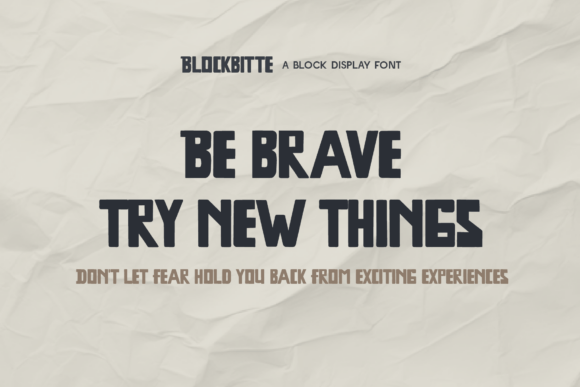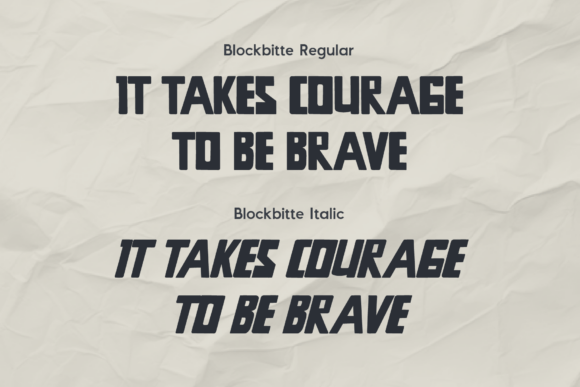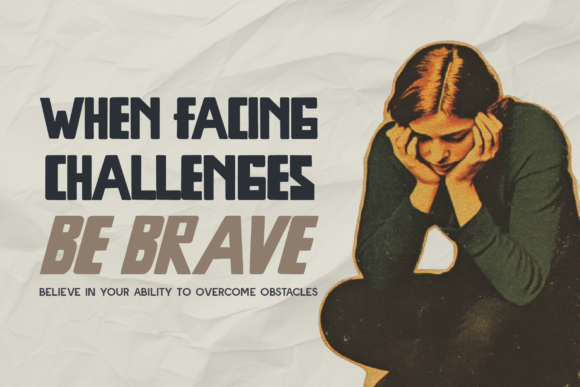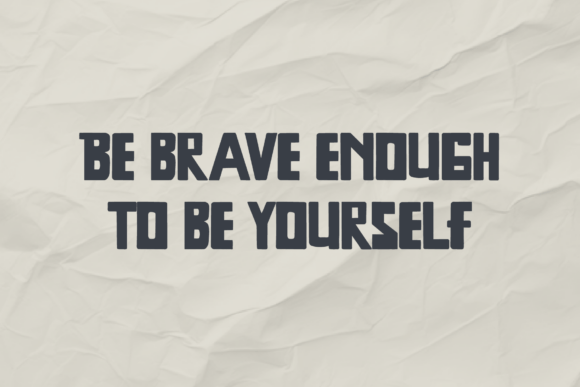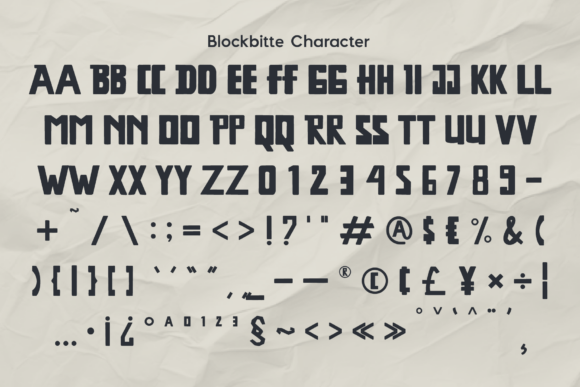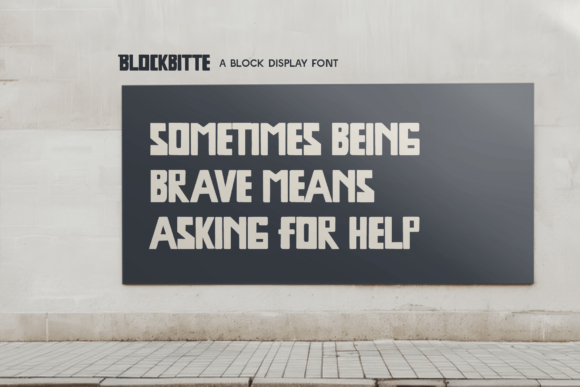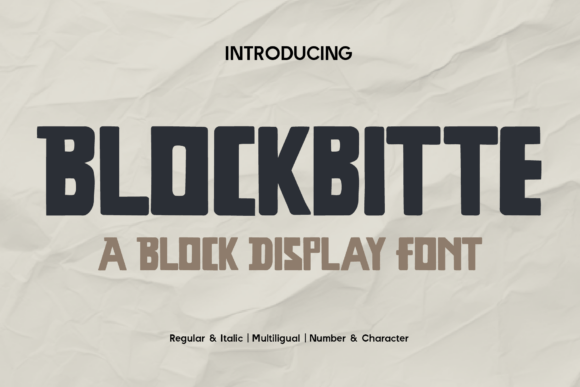
Introducing Blockbitte: The Ultimate Block Display Font for Bold Statements
Are you looking for a font that exudes confidence, personality, and a touch of vintage charm? Look no further than Blockbitte, a robust block display font designed to make a lasting impact. With its bold, straight-edged forms and slightly irregular contours, Blockbitte is the perfect choice for brands and creatives seeking a strong, no-nonsense look.
What Makes Blockbitte Stand Out?
Blockbitte’s unique block style sets it apart from other display fonts. Its bold, straight-edged forms command attention, while its slightly irregular contours give it a handcrafted, vintage-inspired charm. This distinctive combination makes Blockbitte perfect for headlines, posters, packaging, and logos where you want to make a statement.
Key Features of Blockbitte
- BOLD AND ATTENTION-GRABBING: Blockbitte’s robust design ensures that your message gets noticed, whether it’s on a billboard, a business card, or a website.
- UNIQUE BLOCK STYLE WITH CHARACTER: The font’s slightly irregular contours give it a unique personality that sets it apart from more generic block fonts.
- VERSATILE DISPLAY POWER: Blockbitte is available in both upright and italic styles, making it perfect for a wide range of applications, from headlines and posters to packaging and logos.
- CLEAN AND MODERN WITH A HINT OF RETRO: Blockbitte’s design combines the best of both worlds, blending modern cleanliness with a hint of vintage charm.
- PERFECT FOR DIGITAL AND PRINT: Blockbitte’s clear, bold design ensures that it looks great in both digital and print formats.
- MULTILINGUAL SUPPORT: Blockbitte supports multiple languages, making it a great choice for global brands and projects.
Why Choose Blockbitte?
Blockbitte offers a unique combination of boldness, personality, and versatility that makes it an excellent choice for designers and crafters. Here are just a few reasons why you should consider Blockbitte for your next project:
- MAKE A LASTING IMPRESSION: Blockbitte’s bold design ensures that your message gets noticed and remembered.
- ADD PERSONALITY TO YOUR BRAND: Blockbitte’s unique character and vintage-inspired charm can help give your brand a distinctive personality.
- EASY TO READ: Despite its bold design, Blockbitte remains clear and easy to read, even at smaller sizes.
- FLEXIBLE: Blockbitte’s versatility makes it perfect for a wide range of applications, from digital and print to packaging and logos.
How to Use Blockbitte
Blockbitte is perfect for a wide range of applications, including:
- HEADLINES AND TITLES: Use Blockbitte to create bold, attention-grabbing headlines that draw readers in.
- POSTERS AND FLYERS: Blockbitte’s bold design makes it perfect for posters and flyers that need to stand out.
- PACKAGING: Use Blockbitte to add a bold, eye-catching touch to your packaging.
- LOGOS: Blockbitte’s unique character makes it a great choice for logos that need to make a statement.
Blockbitte is a robust block display font that offers a unique combination of boldness, personality, and versatility. With its bold, straight-edged forms and slightly irregular contours, Blockbitte is perfect for brands and creatives seeking a strong, no-nonsense look. Whether you’re looking to make a lasting impression, add personality to your brand, or simply create a bold statement, Blockbitte is the perfect choice.